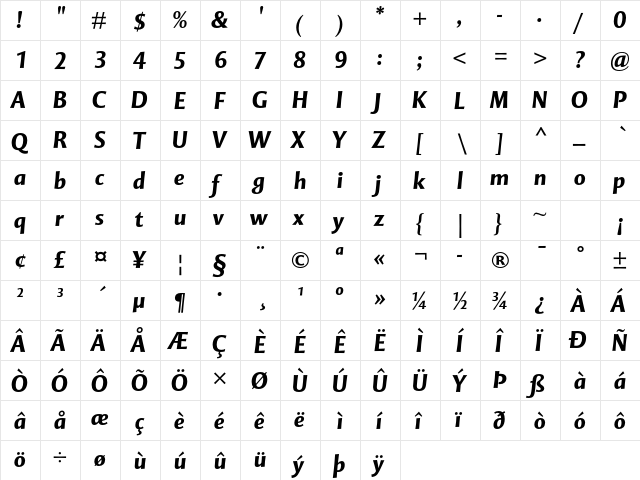
Mentor Sans Std Bold Italic Font Preview
| Designer | Michael Harvey and Andy Benedek |
Design Context for Mentor Sans Std Typeface
Mentor Sans Std offers clean, dependable letterforms without strong stylistic allegiance, making it a practical choice for designers who need flexibility. Its italic angle brings a sense of urgency and motion to the letterforms. Its bold stroke weight gives it real presence on the page.
Pro Tip: Try Mentor Sans Std for annotation and caption copy alongside an upright companion — the contrast in angle creates a dynamic but ordered typographic system.